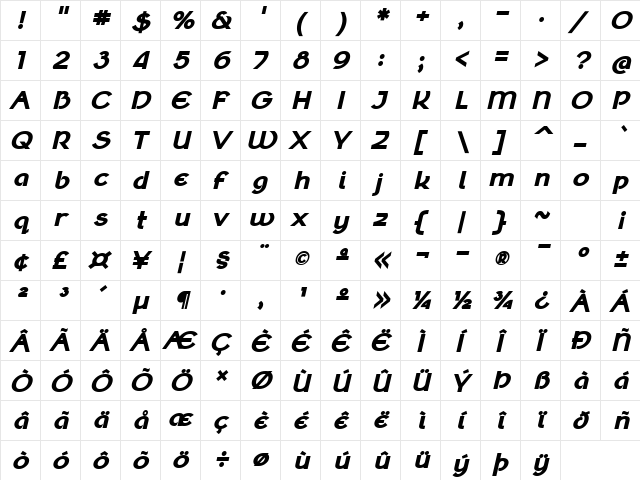
Klaudia Bold Oblique
Design Context for Klaudia Typeface
Klaudia offers clean, dependable letterforms without strong stylistic allegiance, making it a practical choice for designers who need flexibility. Its italic angle brings a sense of urgency and motion to the letterforms. Its bold stroke weight gives it real presence on the page.
Pro Tip: Use Klaudia for emphasis, pull quotes, and subheadings where its slanted energy can add rhythm to the layout.